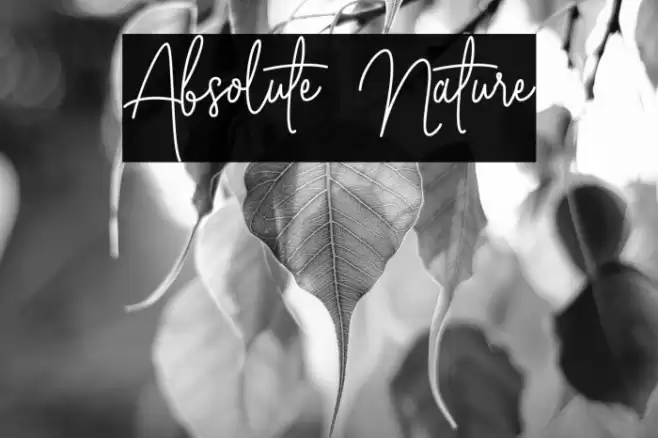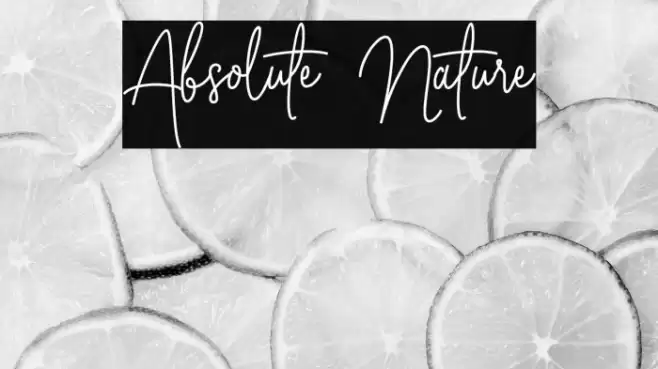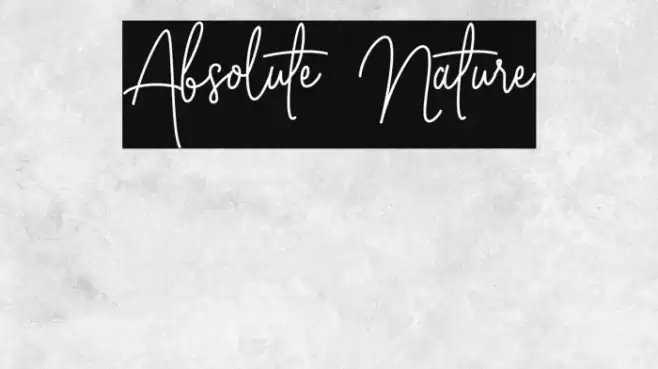
Absolute Nature Font
Absolute Nature Description
This font features a whimsical and flowing handwritten style, characterized by its elegant and elongated letterforms. The uppercase letters are tall and slightly slanted, giving a sense of movement and grace. The lowercase letters maintain a consistent flow, with smooth curves and a playful touch. The numerals are distinct and maintain the same playful style, ensuring readability. Special characters are integrated seamlessly, adding to the font's versatility. This font exudes a sense of creativity and personal touch, making it ideal for projects that require a unique and artistic flair.
A whimsical and flowing handwritten font with elegant, elongated letterforms from Regular fonts.
- Proposed Projects: Ideal for wedding invitations, greeting cards, personal branding, and creative projects that require an artistic touch.
- Use Case: Logos, Invitations, Creative projects